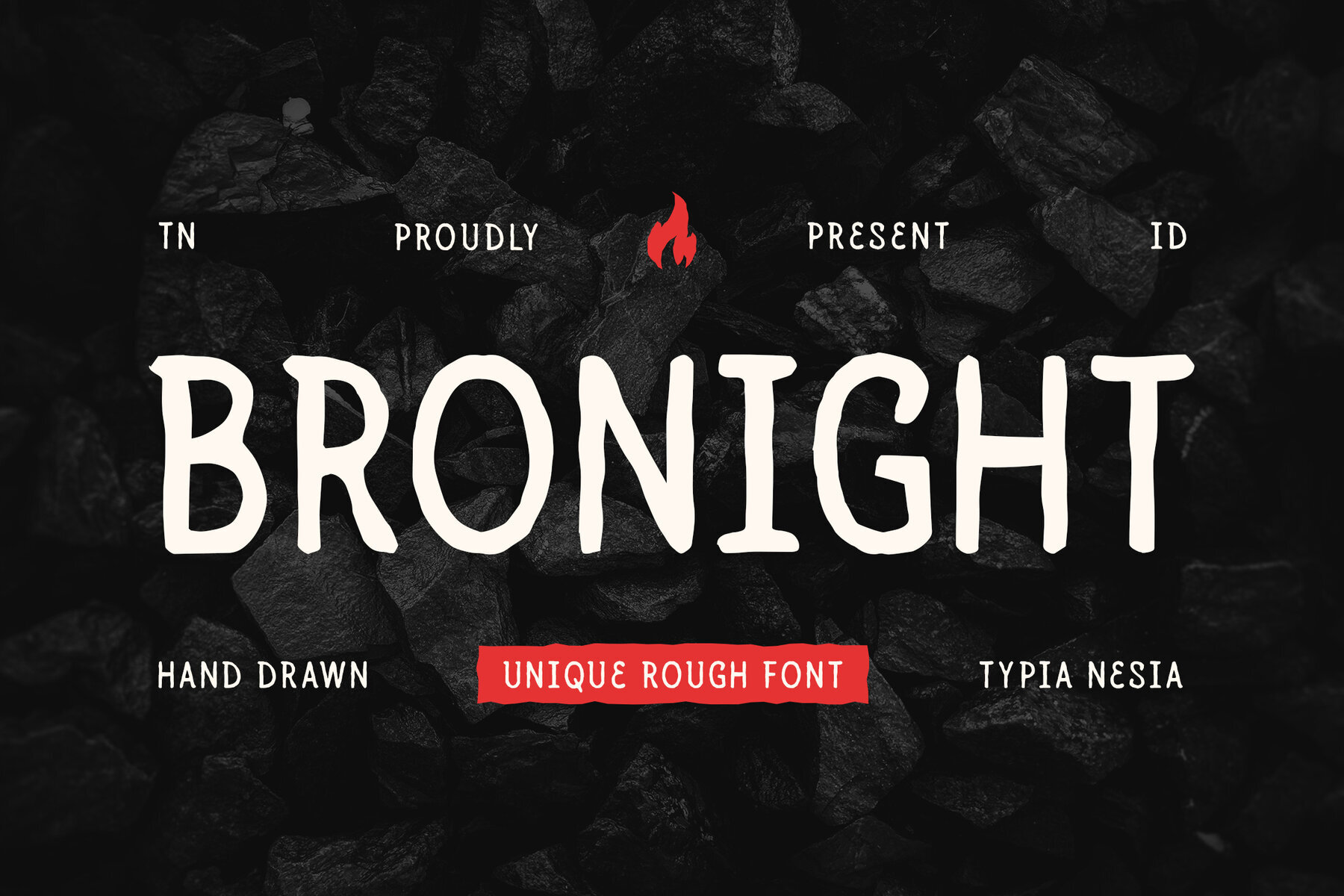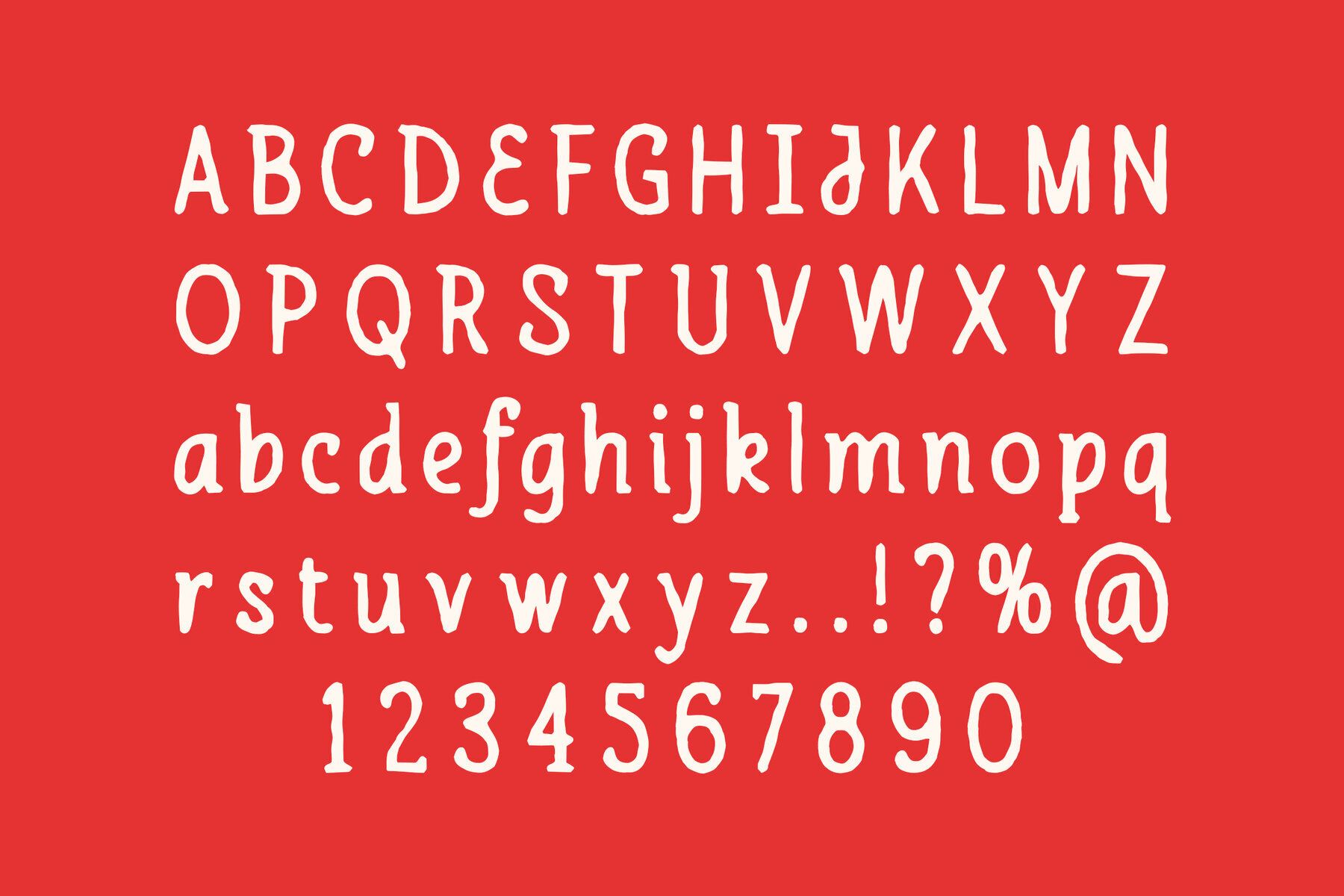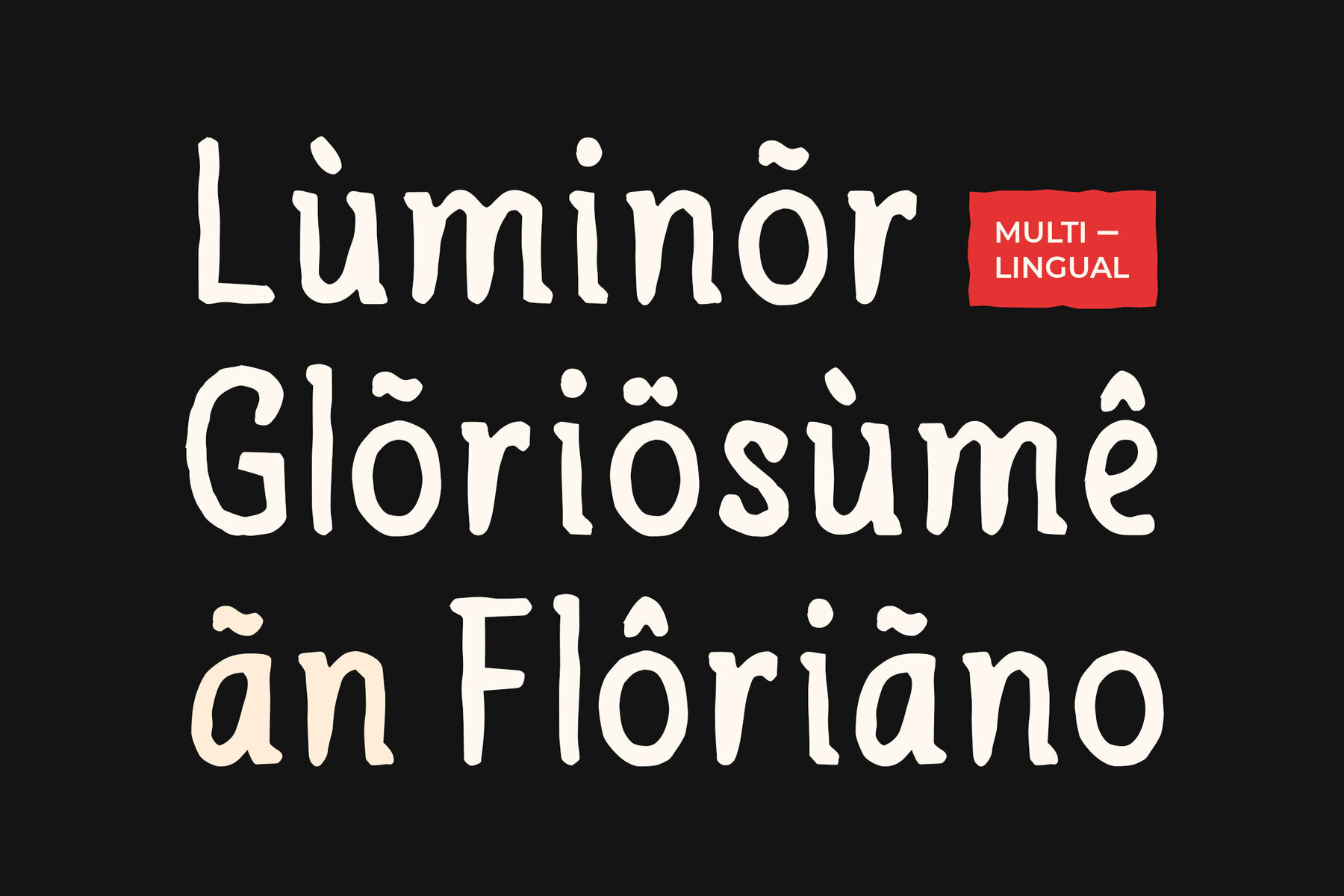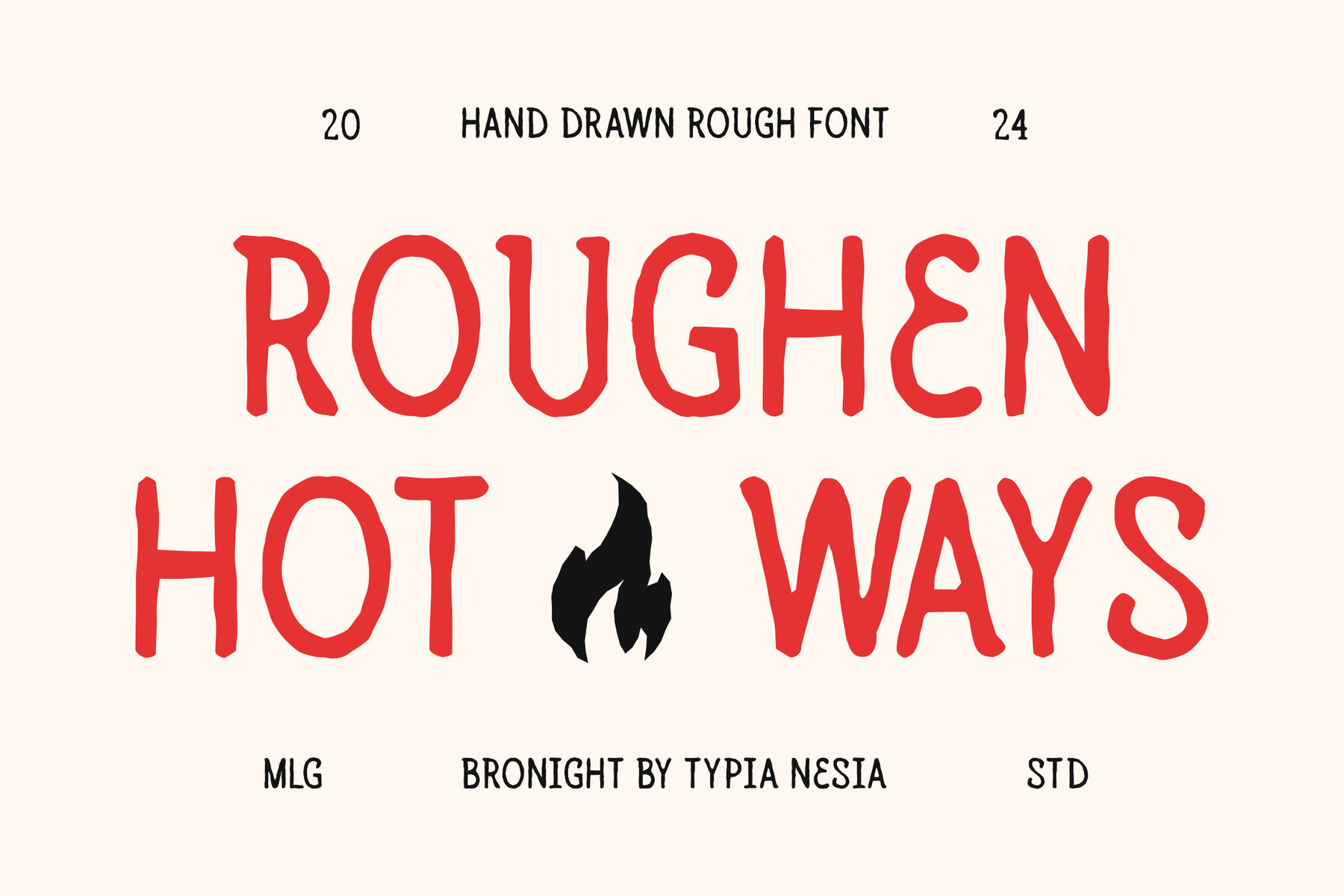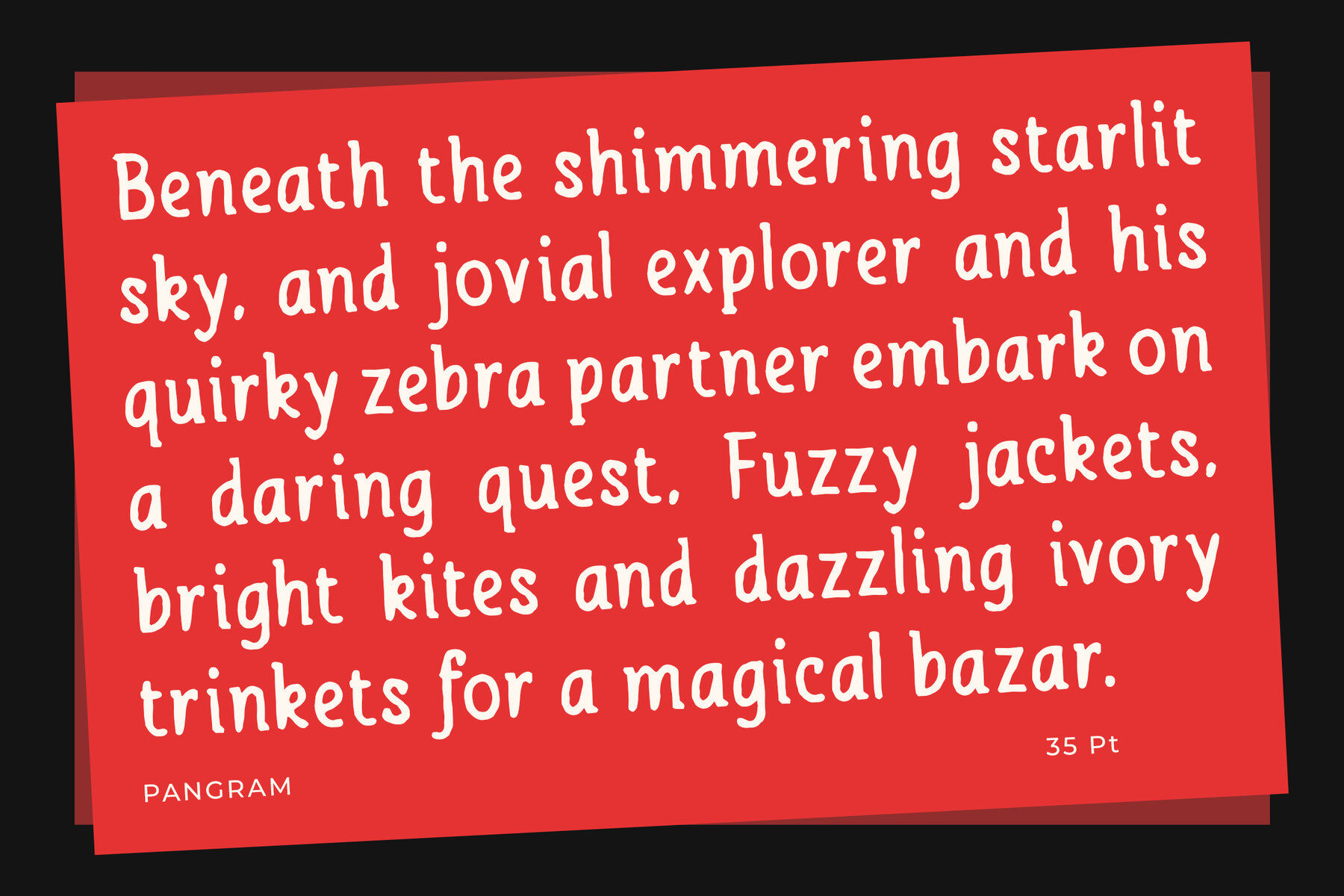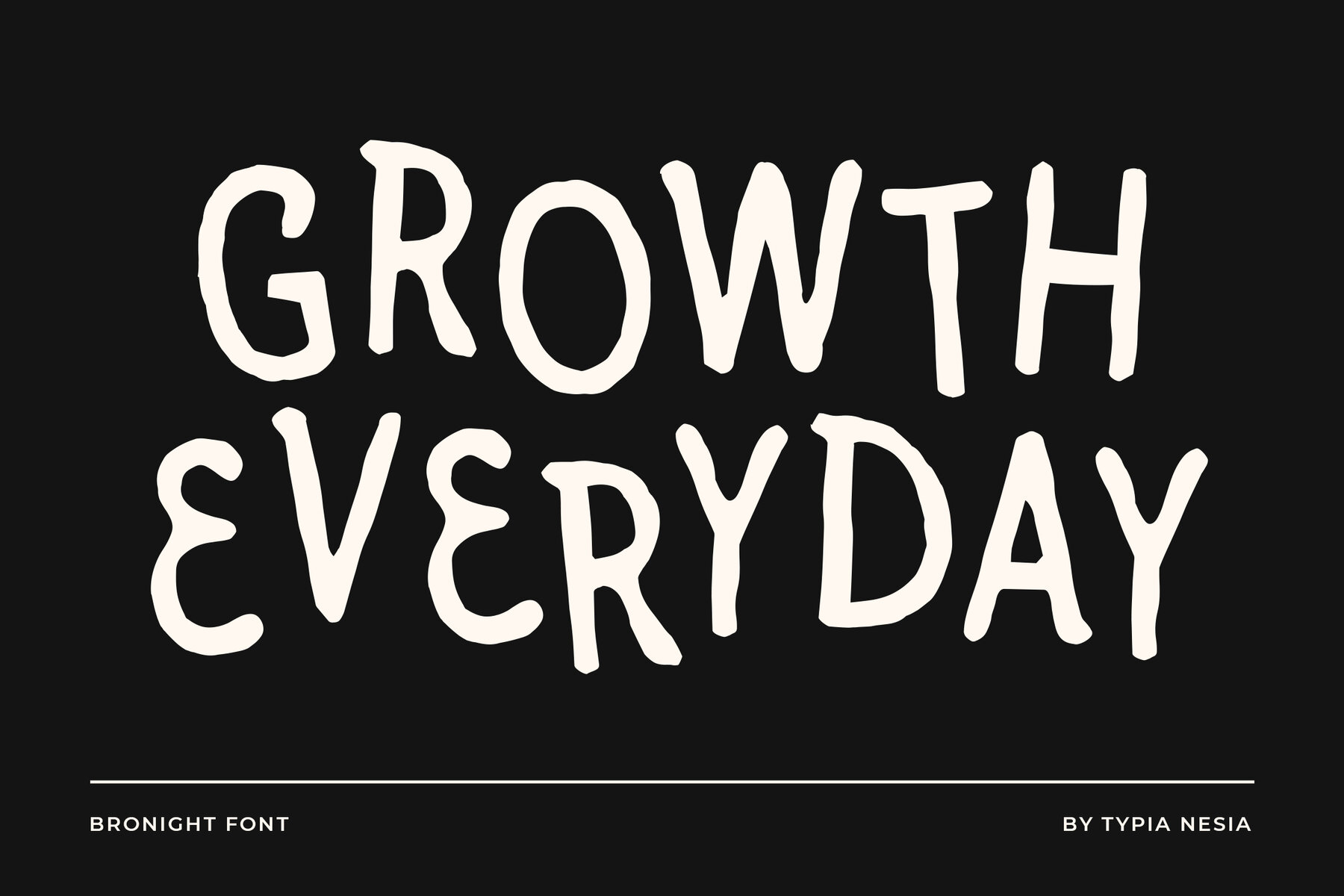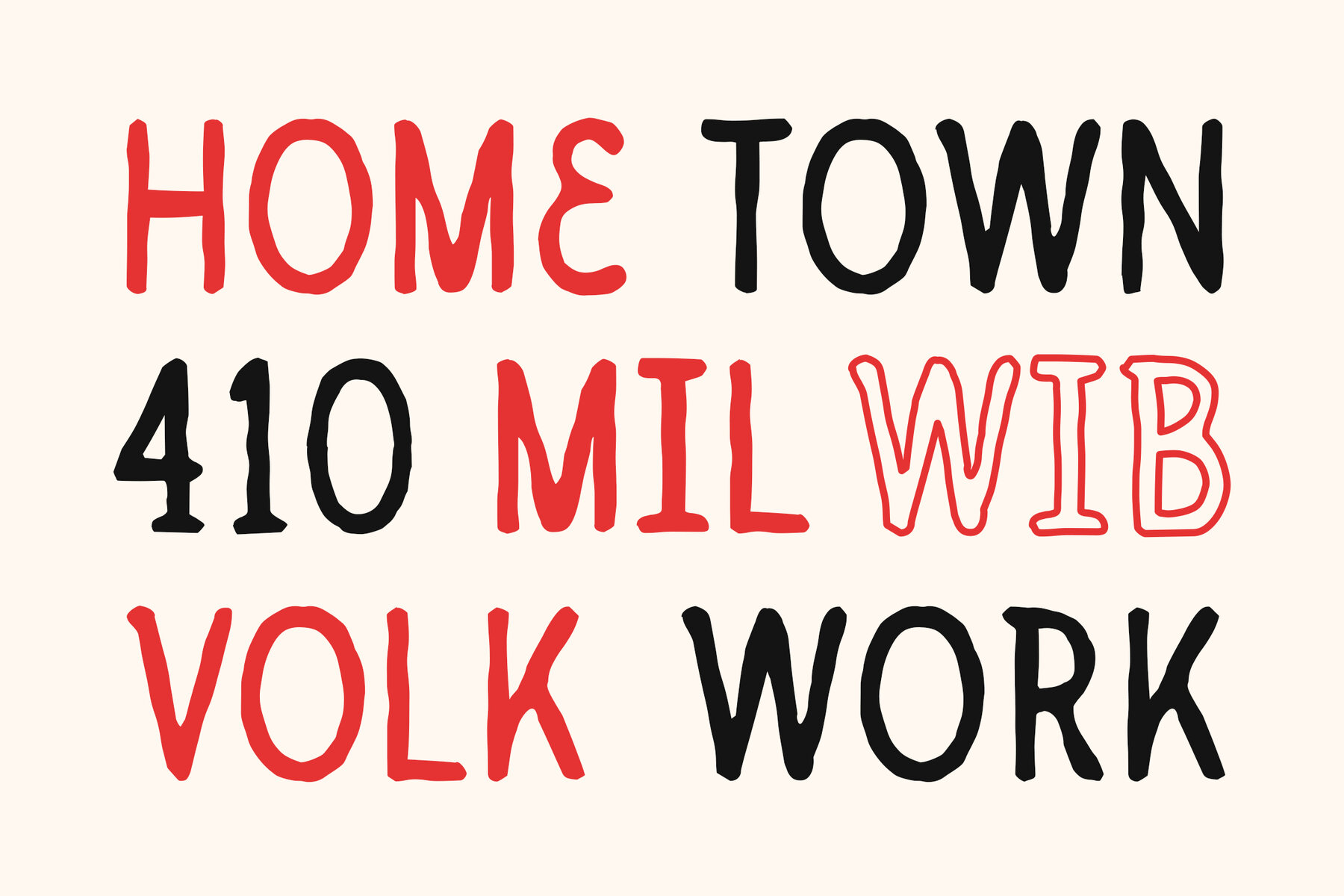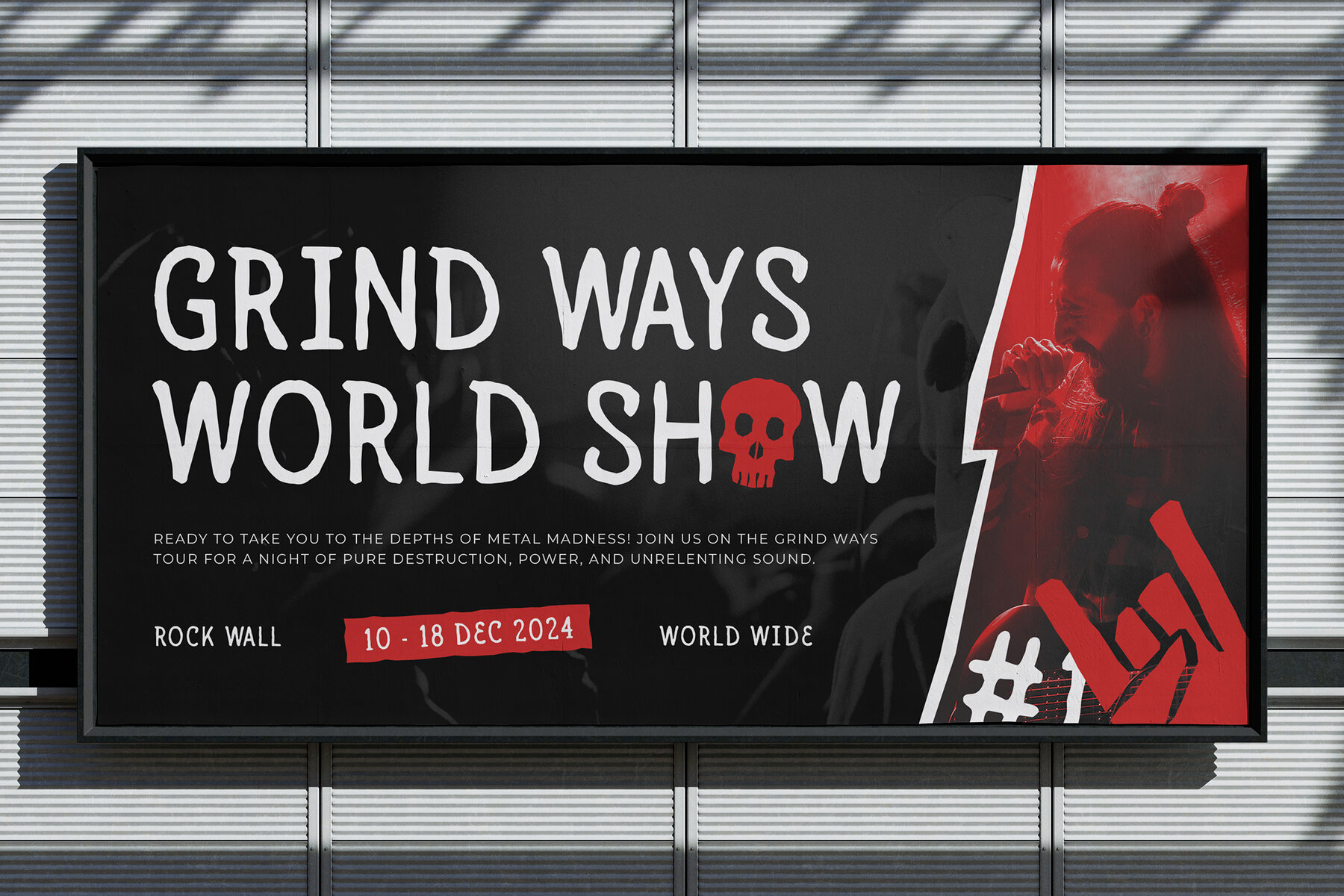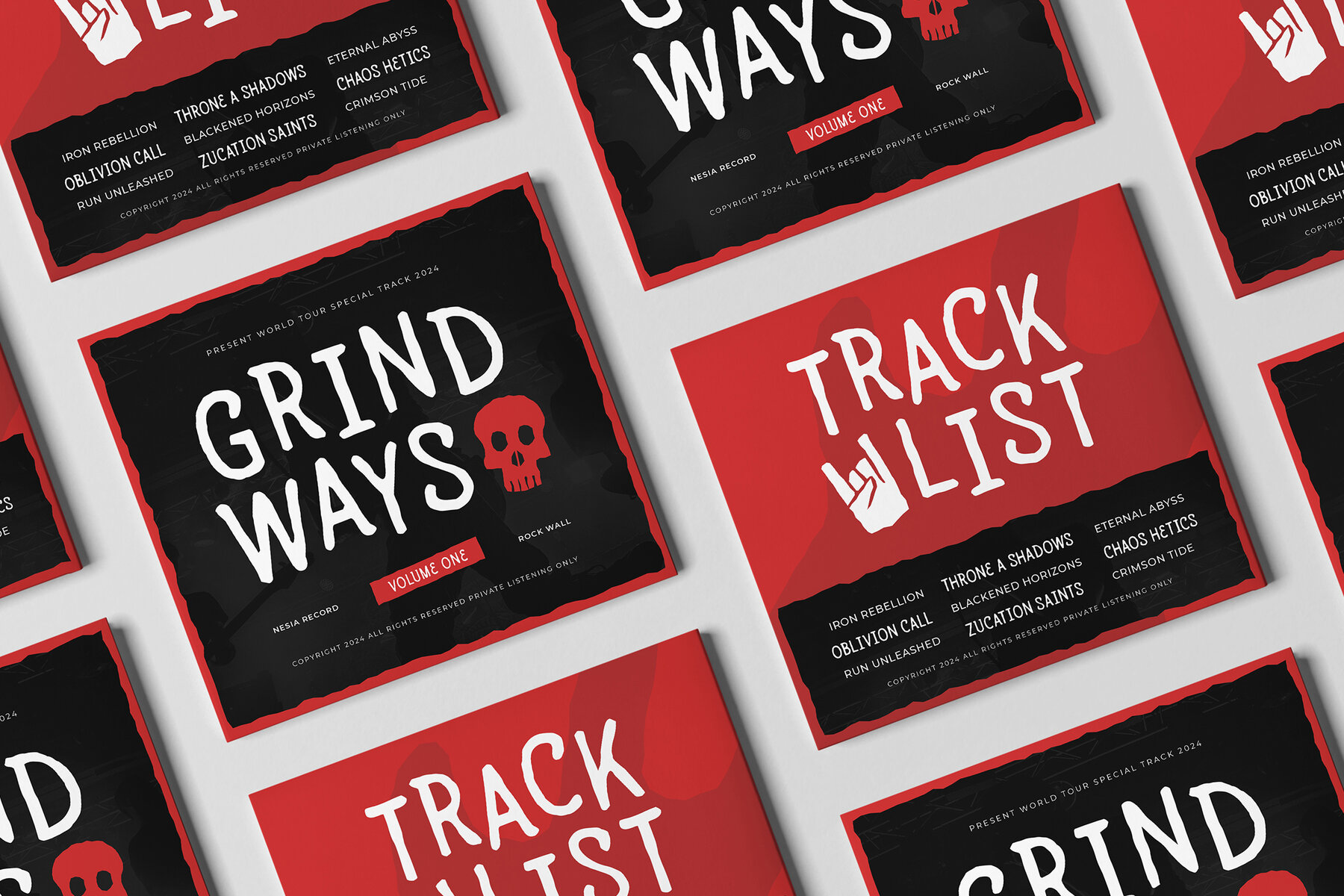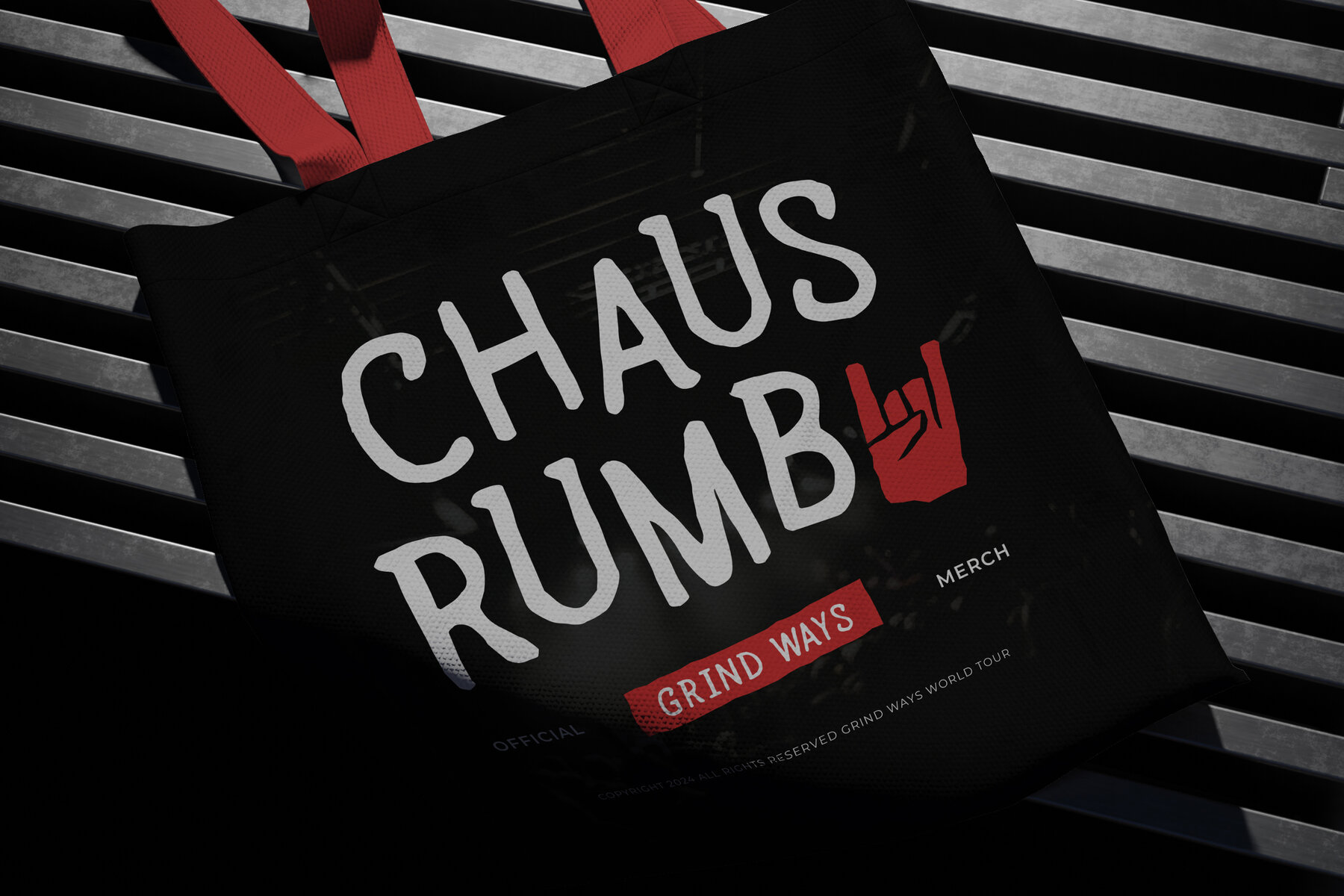
Bronight Font
Bronight Regular
Bronight is a hand-drawn font that embodies the charm of rustic vintage design with its organic strokes and textured imperfections. This font is ideal for projects needing a natural, artistic touch, such as branding, poster designs, apparel prints, product packaging, and rustic logos. The font's unique character also makes it perfect for social media graphics, book covers, signage, and other artistic projects that benefit from a handcrafted aesthetic.
Featuring both uppercase and lowercase letters, punctuation, and numerals, Bronight offers significant flexibility for creative compositions. Its multilingual support allows your message to reach a global audience while maintaining its artistic flair. Perfect for those who appreciate rugged aesthetics, Bronight infuses your designs with a raw, expressive charm, making it a standout choice for vintage-themed projects or any work requiring a handcrafted touch.